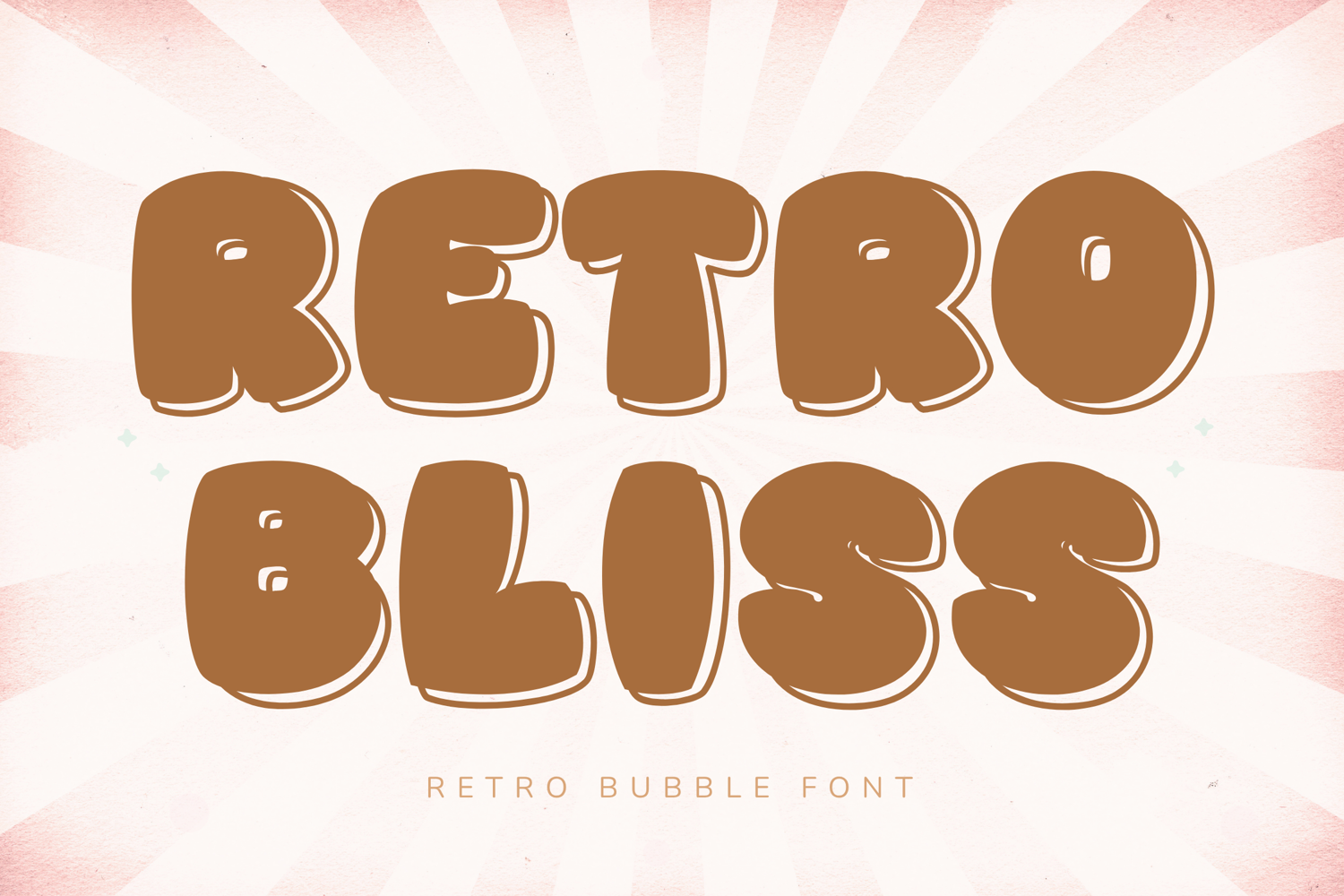
Retro Bliss - Retro Bubble Font
RetroBliss
Retro Bliss is a chunky retro bubble font inspired by vintage 70s typography, groovy aesthetics, and playful nostalgic designs. With its bold rounded shapes, soft inflated letterforms, and slightly imperfect retro texture, this font creates a warm happy vibe that instantly stands out.
Its thick bubble style gives every word a fun handcrafted personality while keeping excellent readability for Cricut projects, stickers, t-shirts, posters, branding, and social media graphics.
Perfect for creators who love cute retro typography with a trendy modern twist.
Key Features:
Bold retro bubble style
Puffy rounded characters
Groovy vintage aesthetic
Cute handcrafted feel
High readability
Uppercase letters
Numbers & punctuation
Strong display appearance
Brand Mood:
Retro
Cute
Playful
Groovy
Vintage
Trendy
Fun
Design Style:
Retro Bliss blends vintage bubble typography with modern aesthetic trends to create a font that feels nostalgic, playful, and eye-catching. The chunky rounded forms and retro-inspired texture make it perfect for bold headlines and fun creative projects.